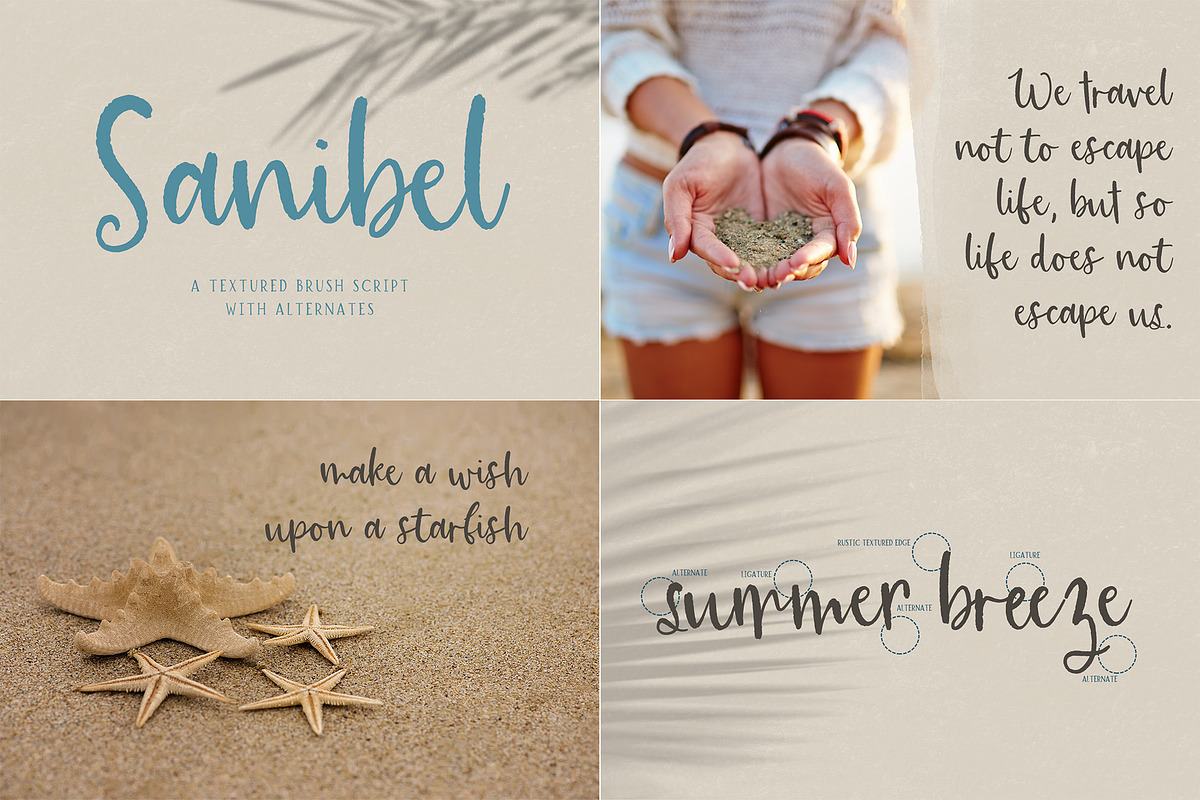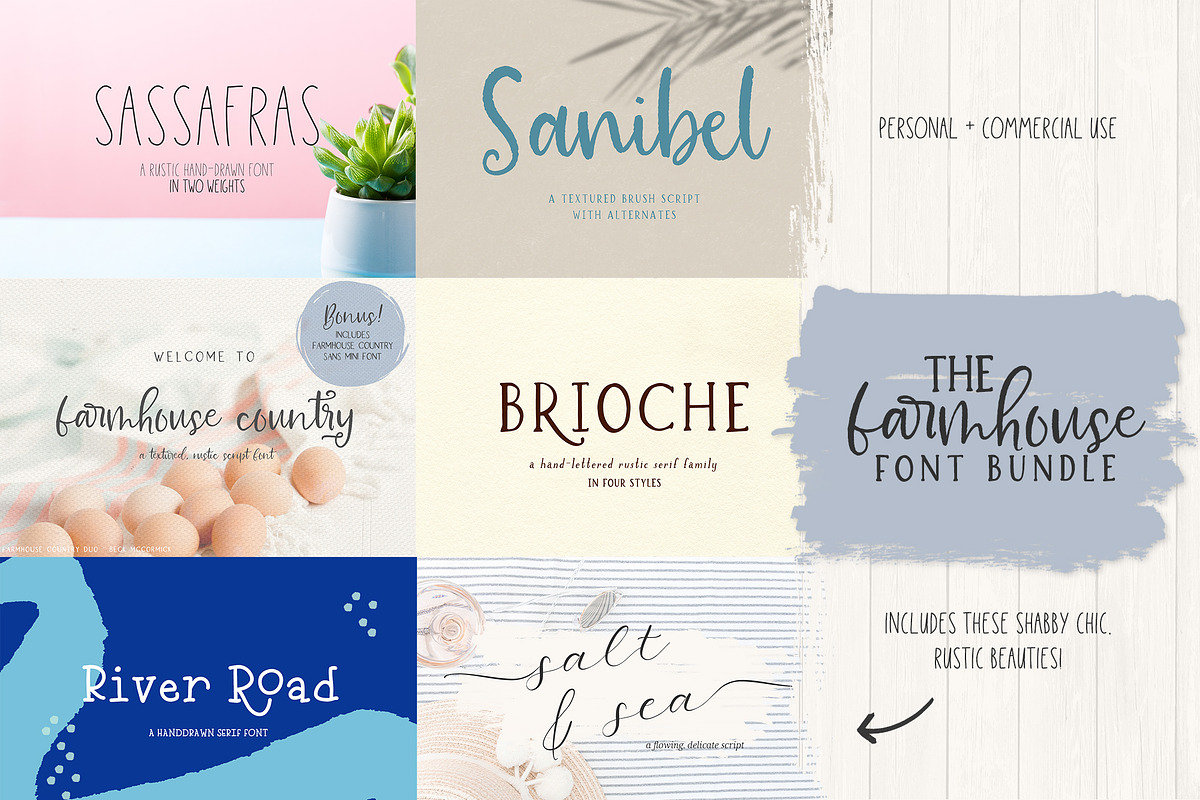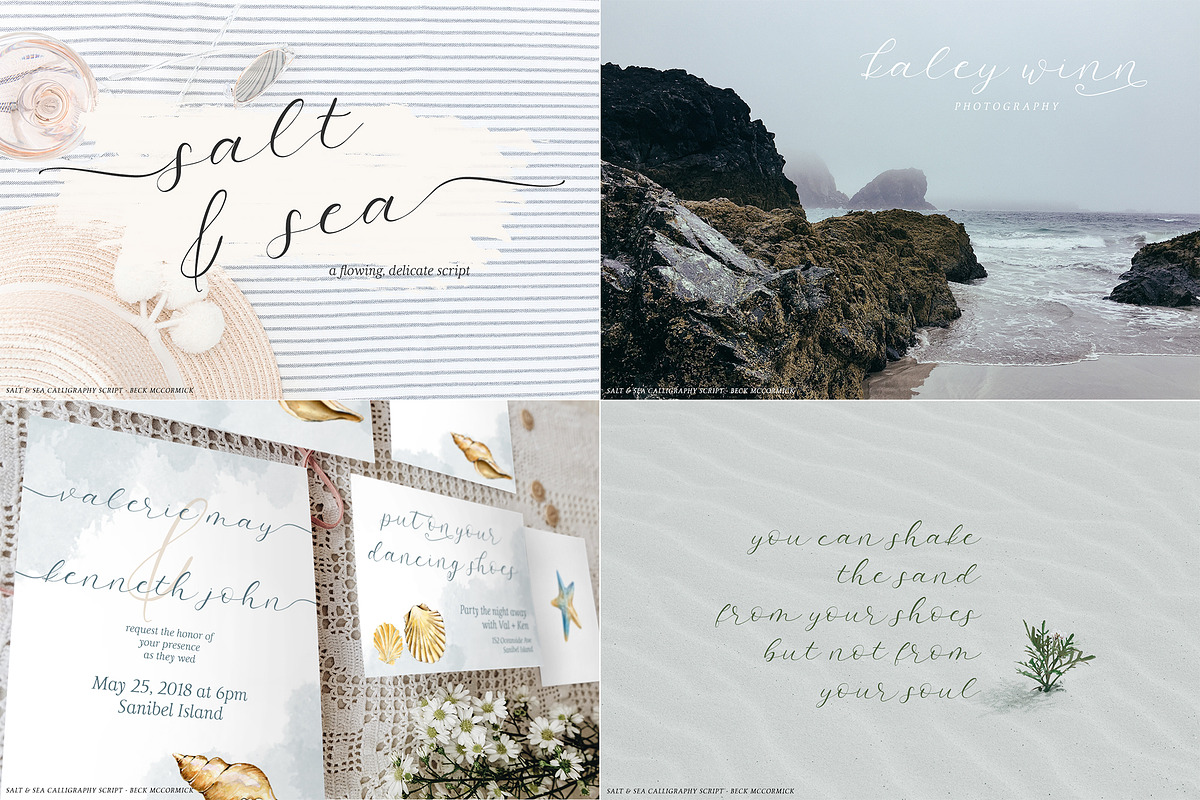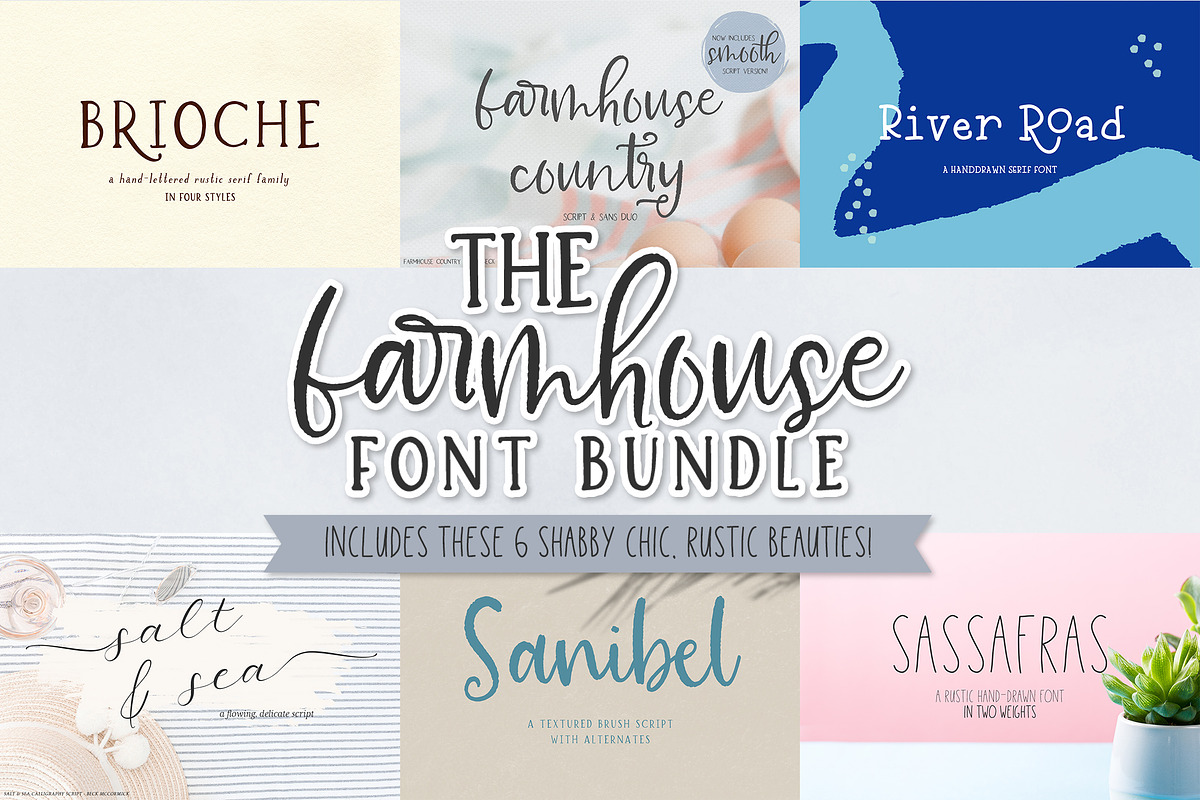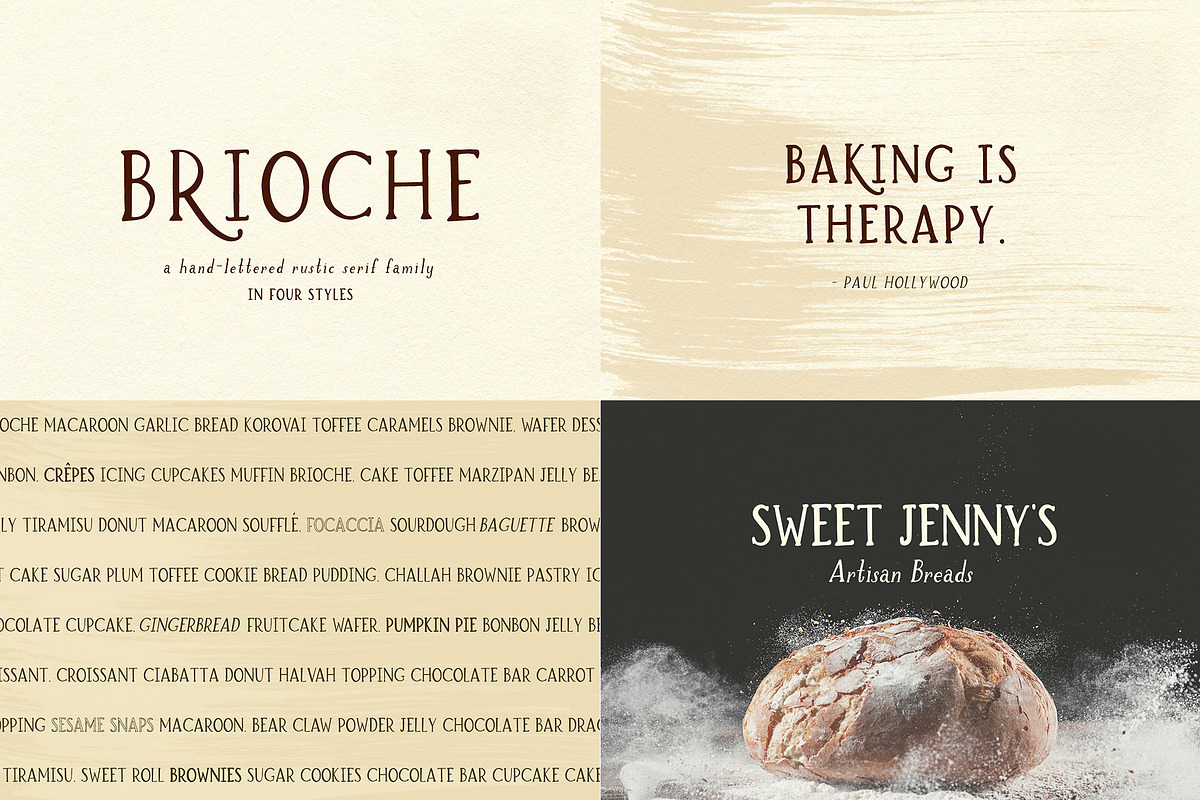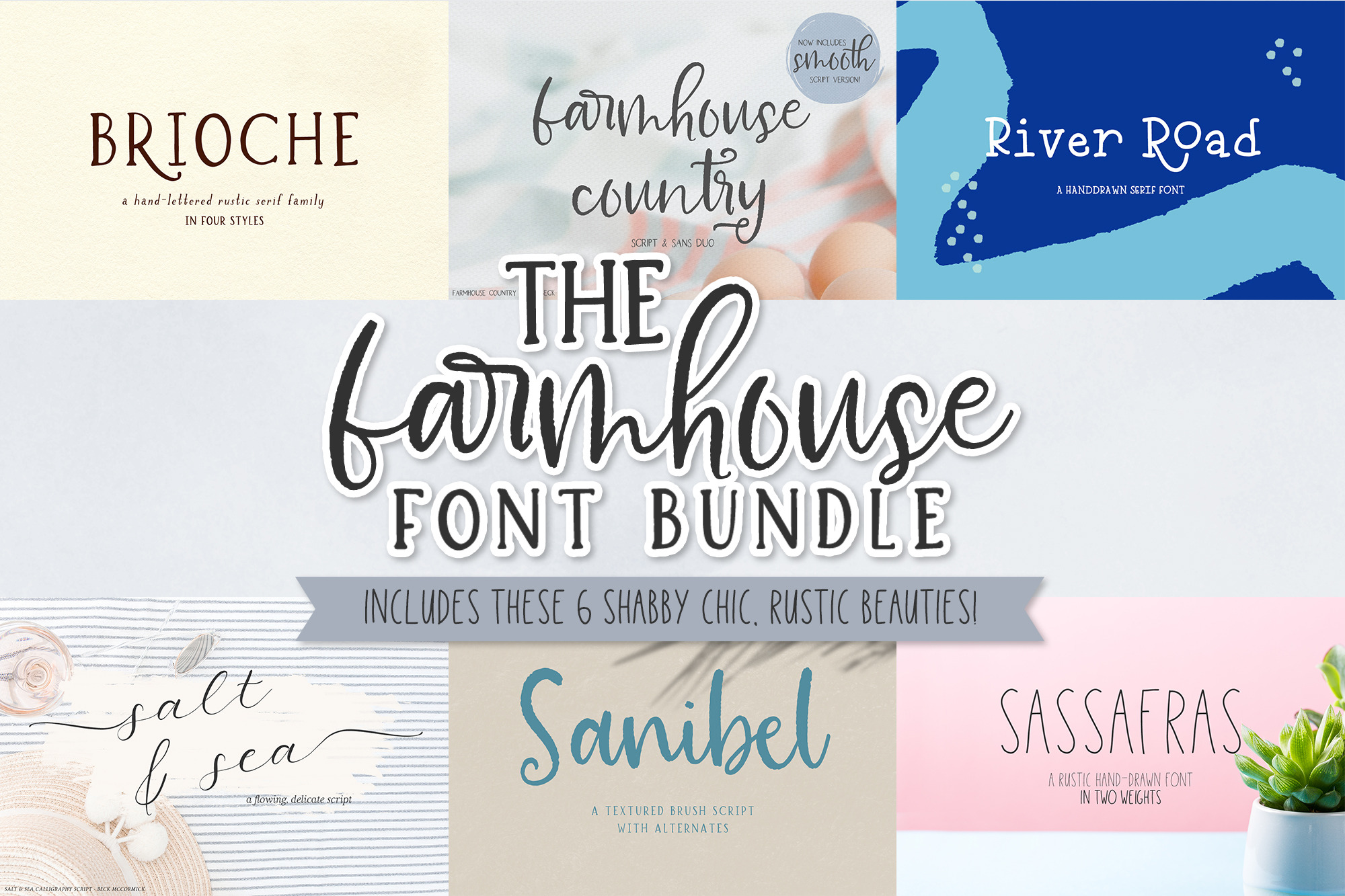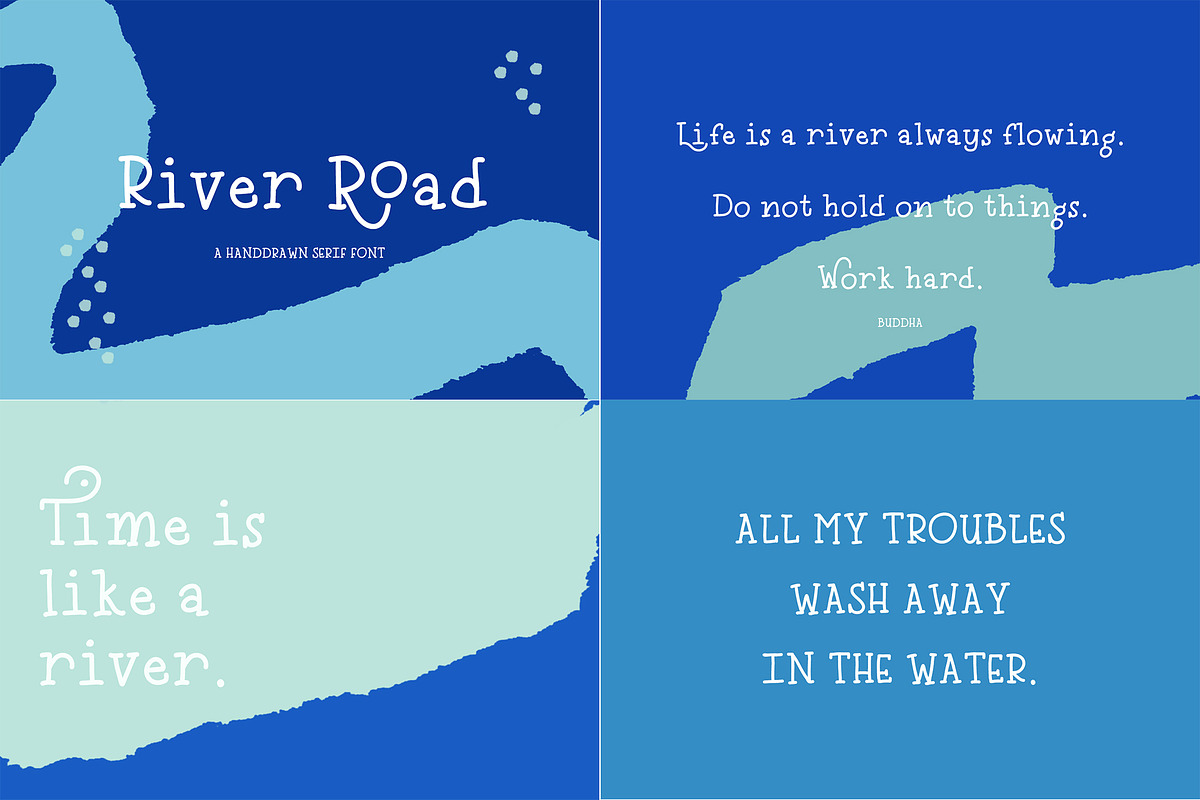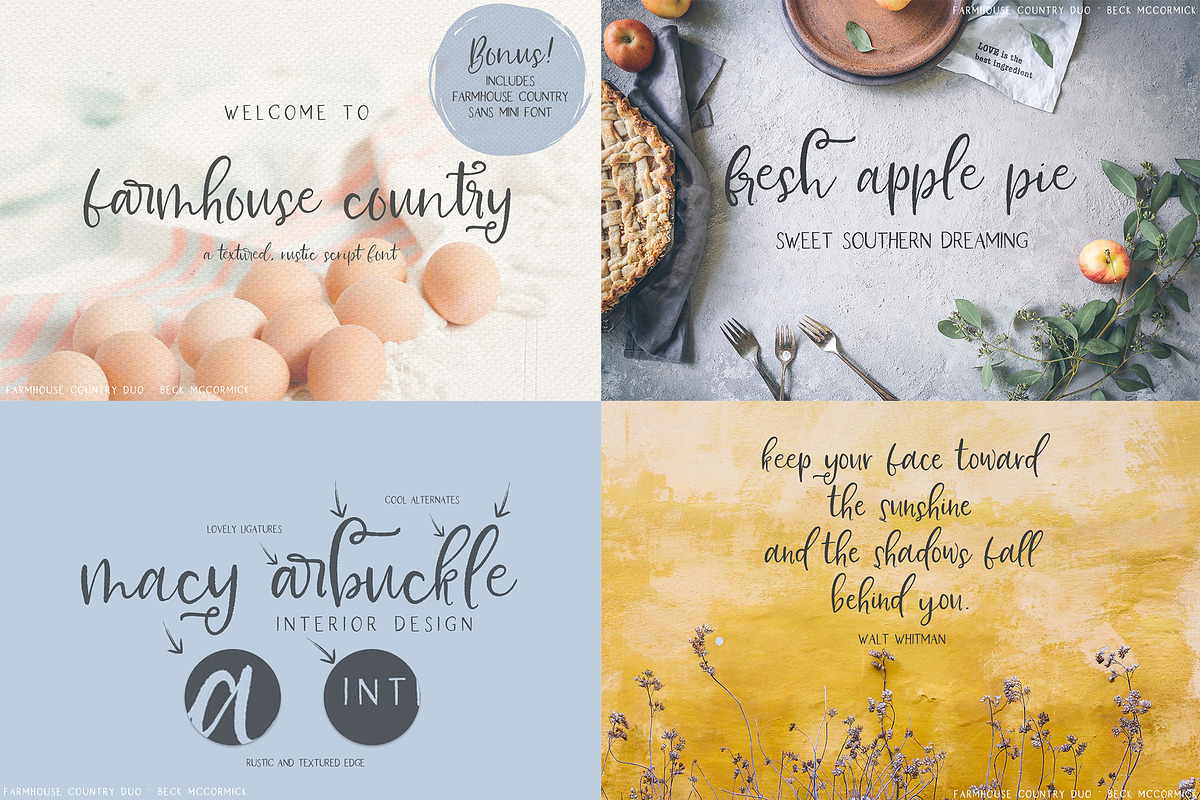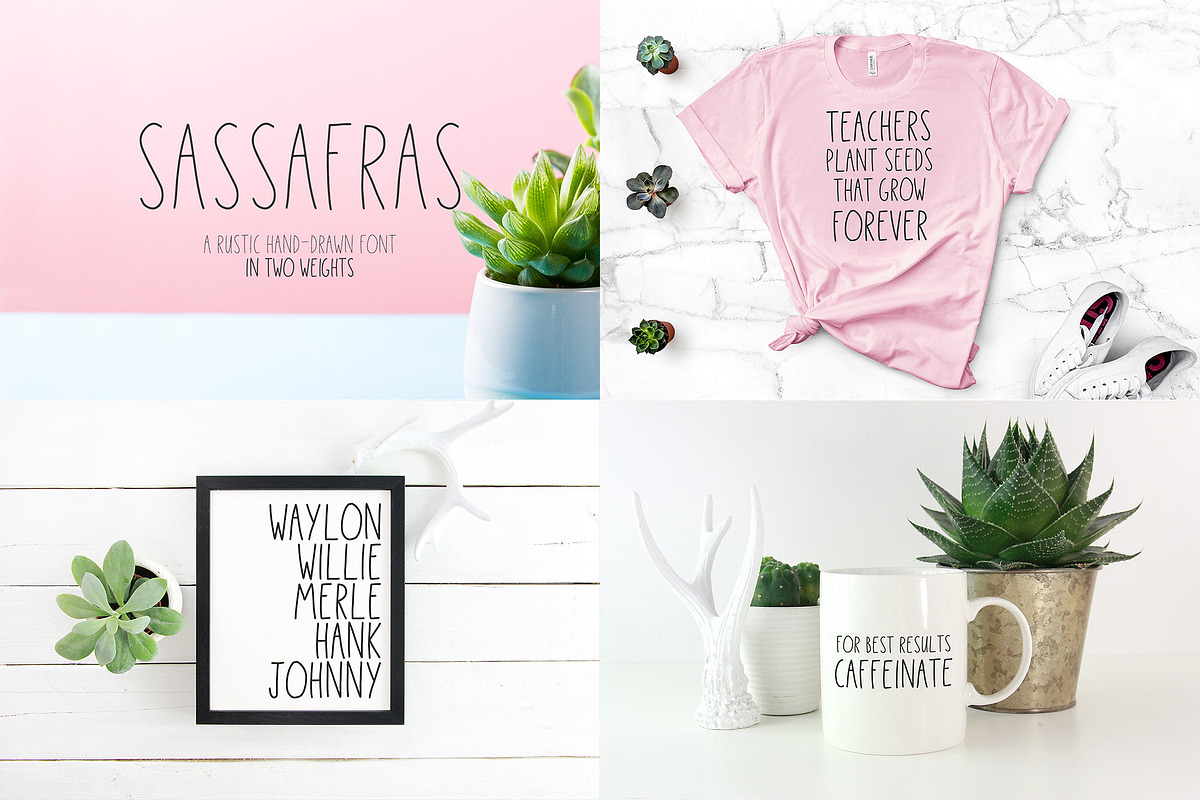
The Farmhouse Font Bundle
Introducing the Farmhouse Font Bundle! This bundle is full of shabby chic, rustic font goodness, and includes an excellent combination of rustic serif fonts, sans fonts, and beautiful cursive fonts. In this bundle, you’ll find:
- my best-selling Farmhouse Country Duo (two fonts)
- the Brioche family (four fonts)
- Sanibel Script
- River Road Typewriter Serif
- Salt & Sea Calligraphy Font
- and Sassafras Sans in two weights (two fonts)
These fonts pair wonderfully, and would be perfect for rustic logos + brands, farmhouse signs, printables + home decor, & more!